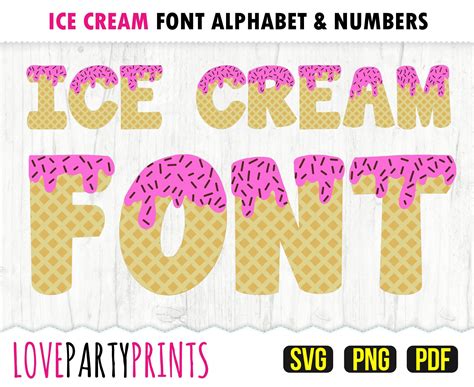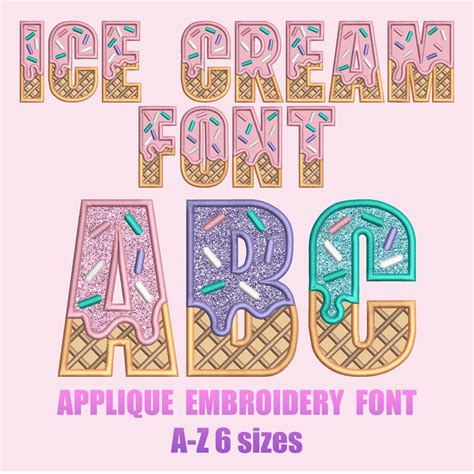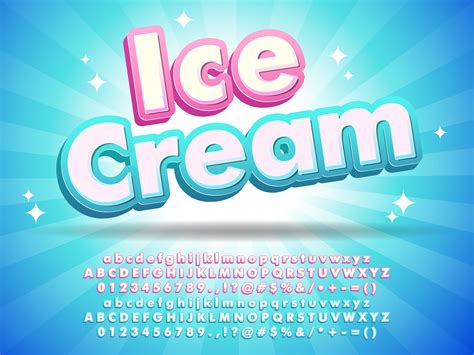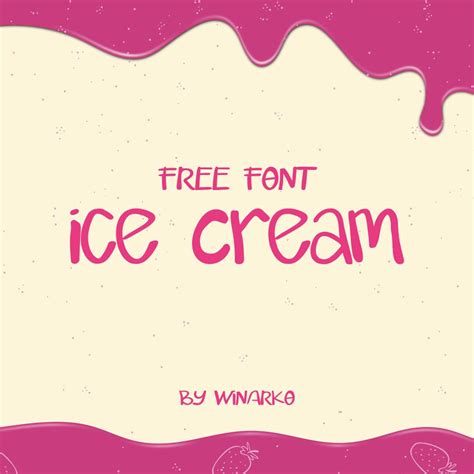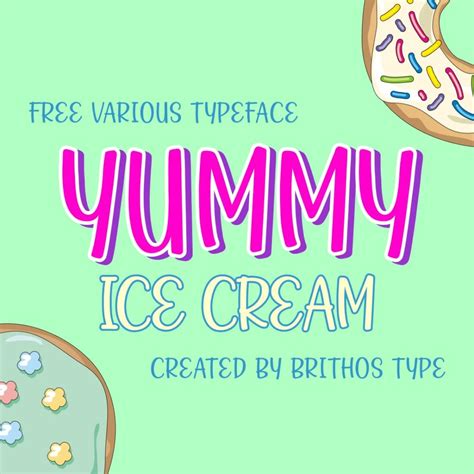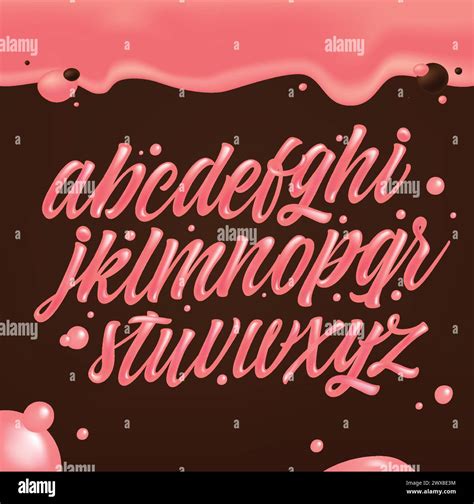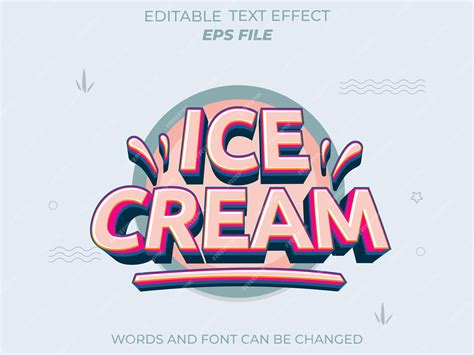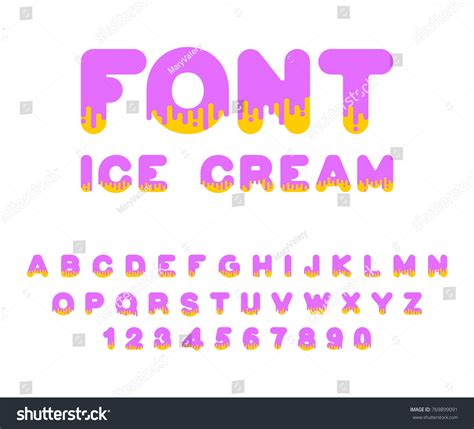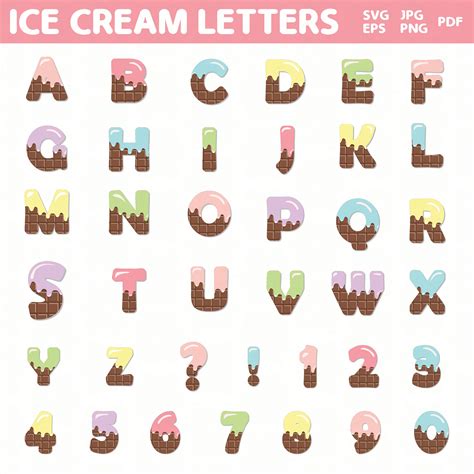
In the world of typography, fonts play a crucial role in setting the tone and mood of any design. One font that has gained significant attention for its playful and whimsical nature is the Ice Cream Font. This font is particularly popular among designers who want to evoke a sense of fun, nostalgia, and sweetness in their projects. Whether you're designing a poster for an ice cream parlor, creating a birthday invitation, or developing a branding campaign for a dessert shop, the Ice Cream Font can add a delightful touch to your work.
What is the Ice Cream Font?
The Ice Cream Font is a typeface that mimics the look of hand-drawn, retro-style lettering often associated with vintage ice cream parlors and summer treats. It features rounded, bubbly letters that give off a playful and inviting vibe. The font is designed to be eye-catching and memorable, making it perfect for projects that aim to capture the essence of childhood memories and summer fun.
History and Inspiration
The Ice Cream Font draws inspiration from the classic ice cream parlors of the past. These establishments often used hand-painted signs and menus with whimsical lettering to attract customers. The font’s design elements, such as the rounded edges and playful curves, are reminiscent of these vintage signs. The Ice Cream Font aims to bring back that nostalgic feel, making it a popular choice for designers looking to create a retro aesthetic.
Characteristics of the Ice Cream Font
The Ice Cream Font is characterized by several distinctive features that make it stand out:
- Rounded Letters: The font uses rounded, bubbly letters that give it a soft and friendly appearance.
- Playful Curves: The curves and lines in the font are designed to be playful and inviting, evoking a sense of fun and nostalgia.
- Vintage Aesthetic: The font’s design is inspired by vintage ice cream parlor signs, giving it a retro feel.
- Versatility: Despite its playful nature, the Ice Cream Font can be used in a variety of projects, from invitations to branding materials.
How to Use the Ice Cream Font
Design Ideas with the Ice Cream Font
The Ice Cream Font is incredibly versatile and can be used in a wide range of design projects. Here are some ideas to inspire you:
Ice Cream Parlor Signage
Create eye-catching signage for an ice cream parlor using the Ice Cream Font. The font’s playful and inviting design will attract customers and set the tone for a fun and nostalgic experience.
Birthday Invitations
Design birthday invitations that evoke a sense of childhood fun and excitement. The Ice Cream Font is perfect for creating invitations that will make guests feel like they’re stepping into a world of sweet treats and happy memories.
Branding Materials
Use the Ice Cream Font in branding materials for dessert shops, bakeries, or any business that wants to convey a sense of sweetness and fun. The font can be used in logos, menus, packaging, and more.
Social Media Graphics
Create engaging social media graphics that stand out with the Ice Cream Font. Whether you’re promoting a new ice cream flavor, sharing a recipe, or announcing an event, the font will add a playful touch to your posts.
Posters and Flyers
Design posters and flyers for events, promotions, or announcements using the Ice Cream Font. The font’s eye-catching design will help your posters stand out and grab attention.
Tips for Effective Use of the Ice Cream Font
To make the most of the Ice Cream Font in your design projects, consider the following tips:
- Pair with Complementary Fonts: The Ice Cream Font works well with other playful and whimsical fonts. Consider pairing it with a complementary font for headings or body text to create a cohesive design.
- Use Contrasting Colors: Choose colors that contrast with the Ice Cream Font to make the text stand out. Bright, vibrant colors can enhance the font’s playful nature.